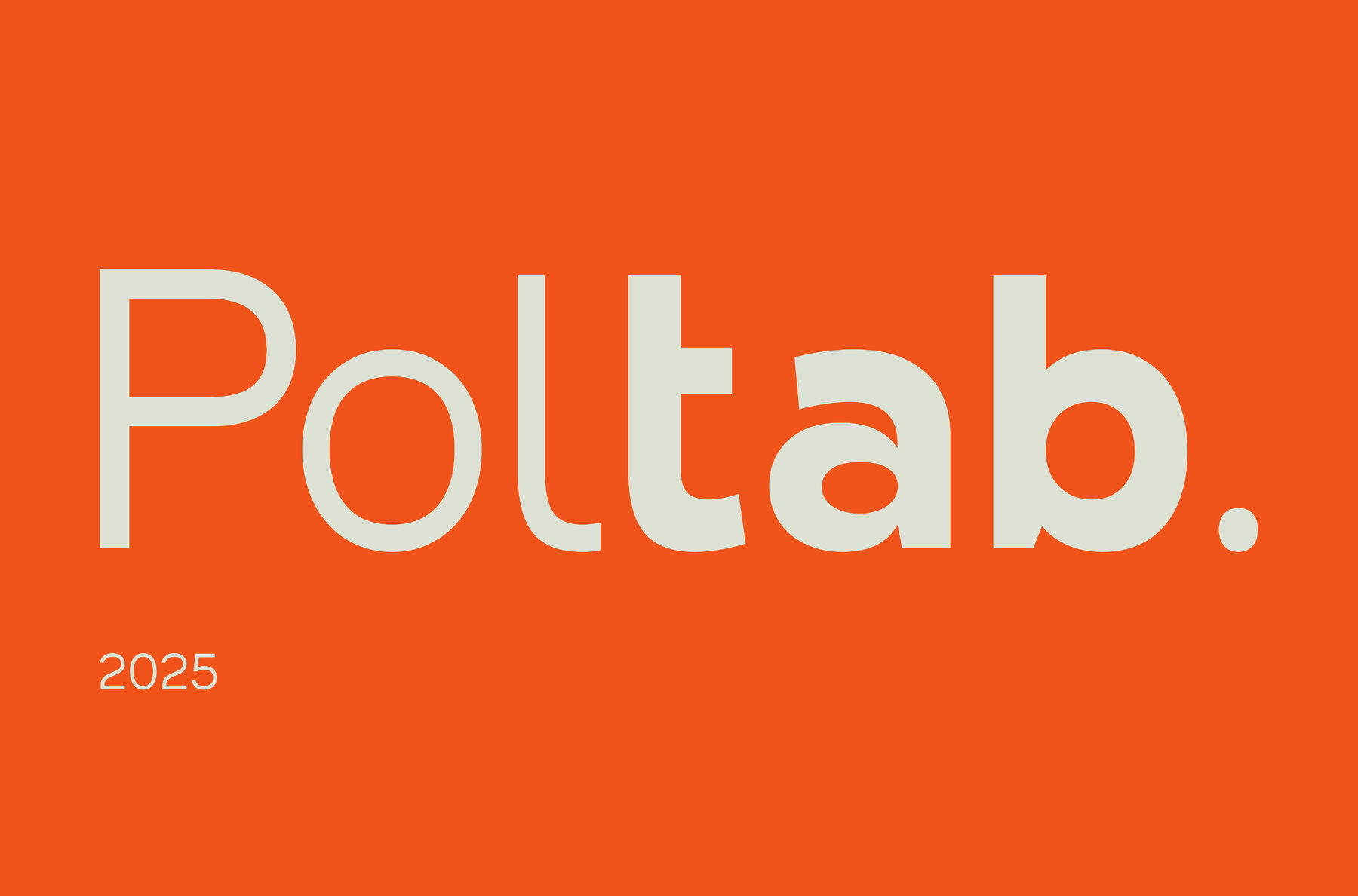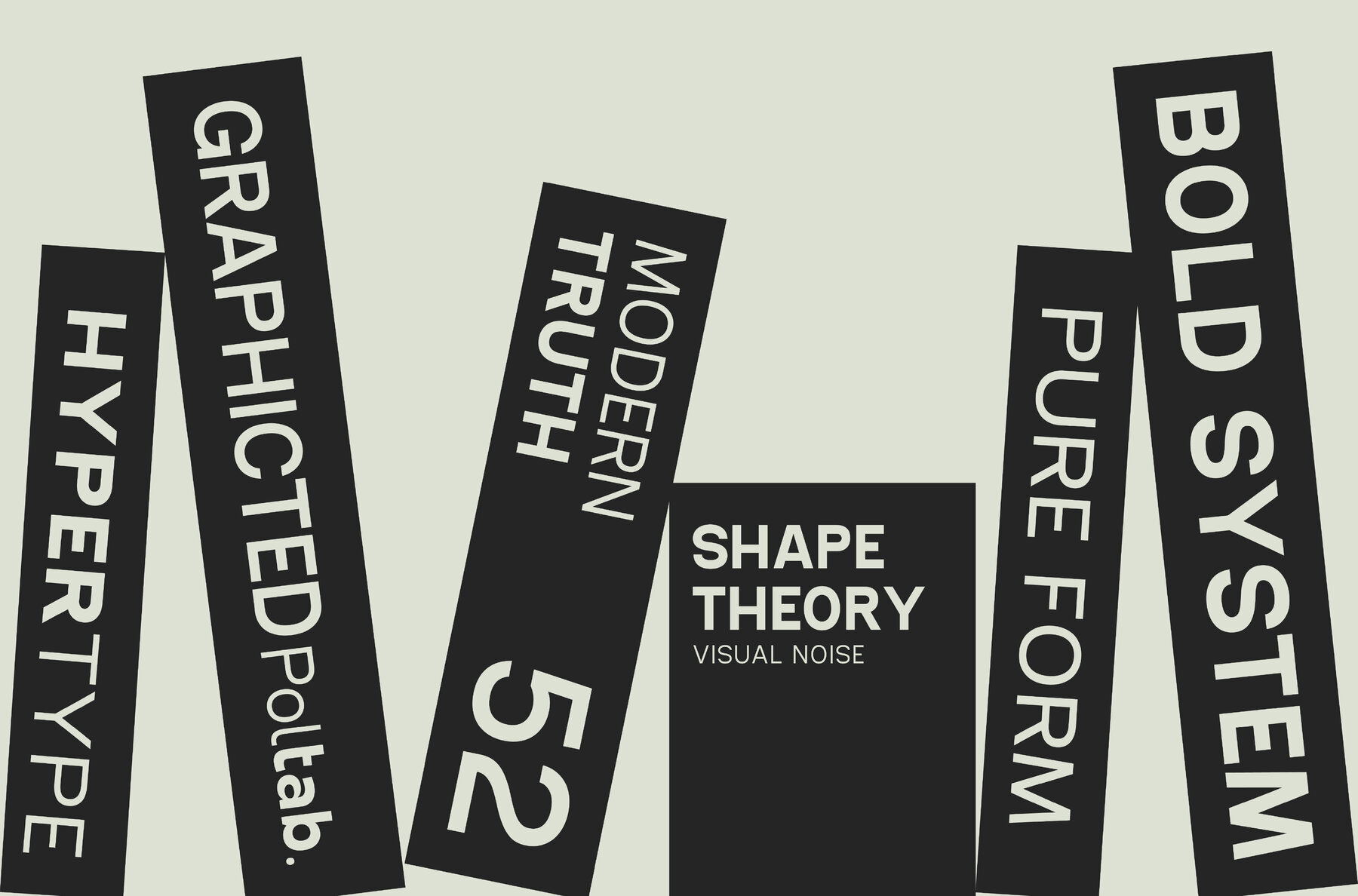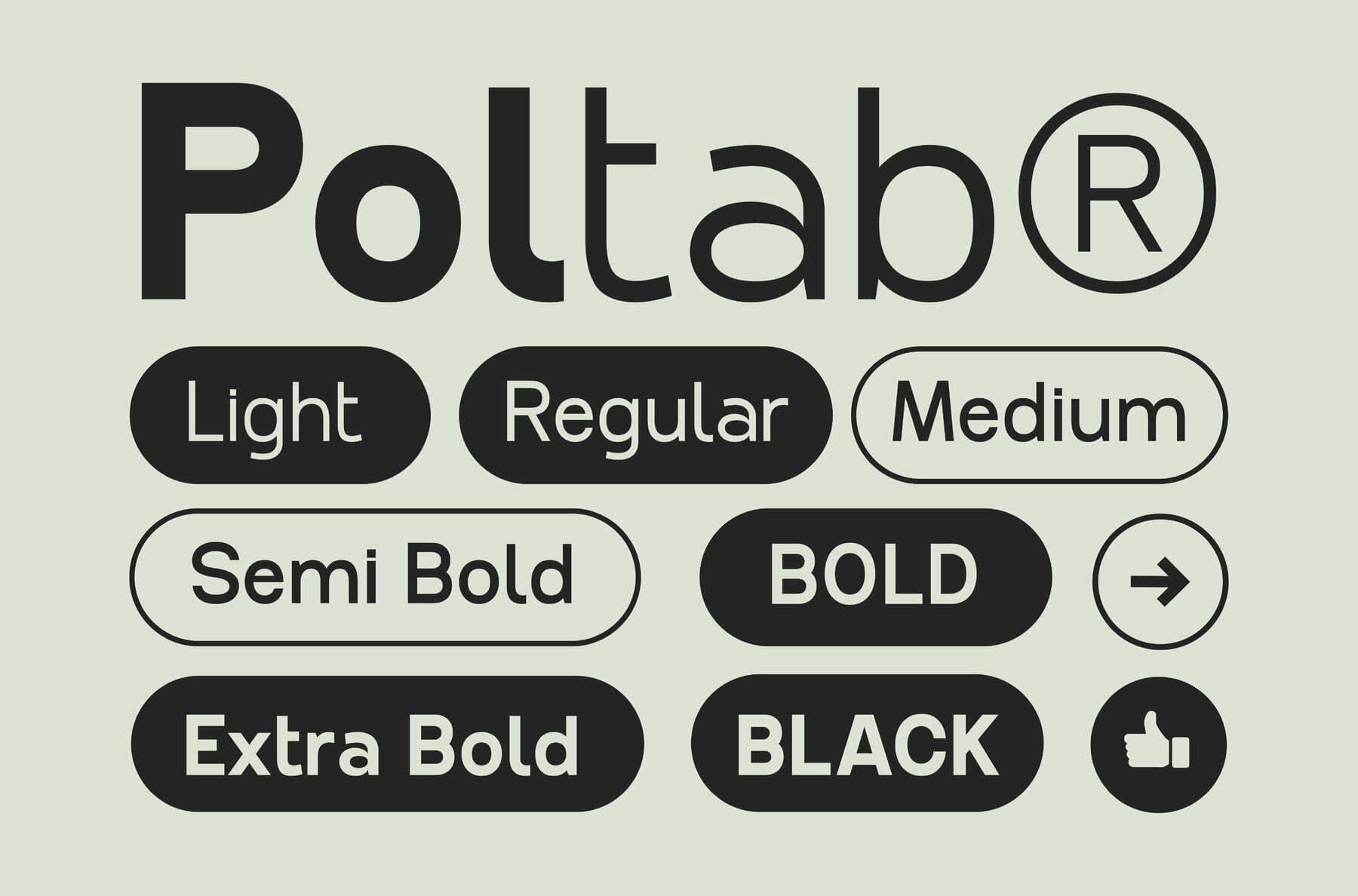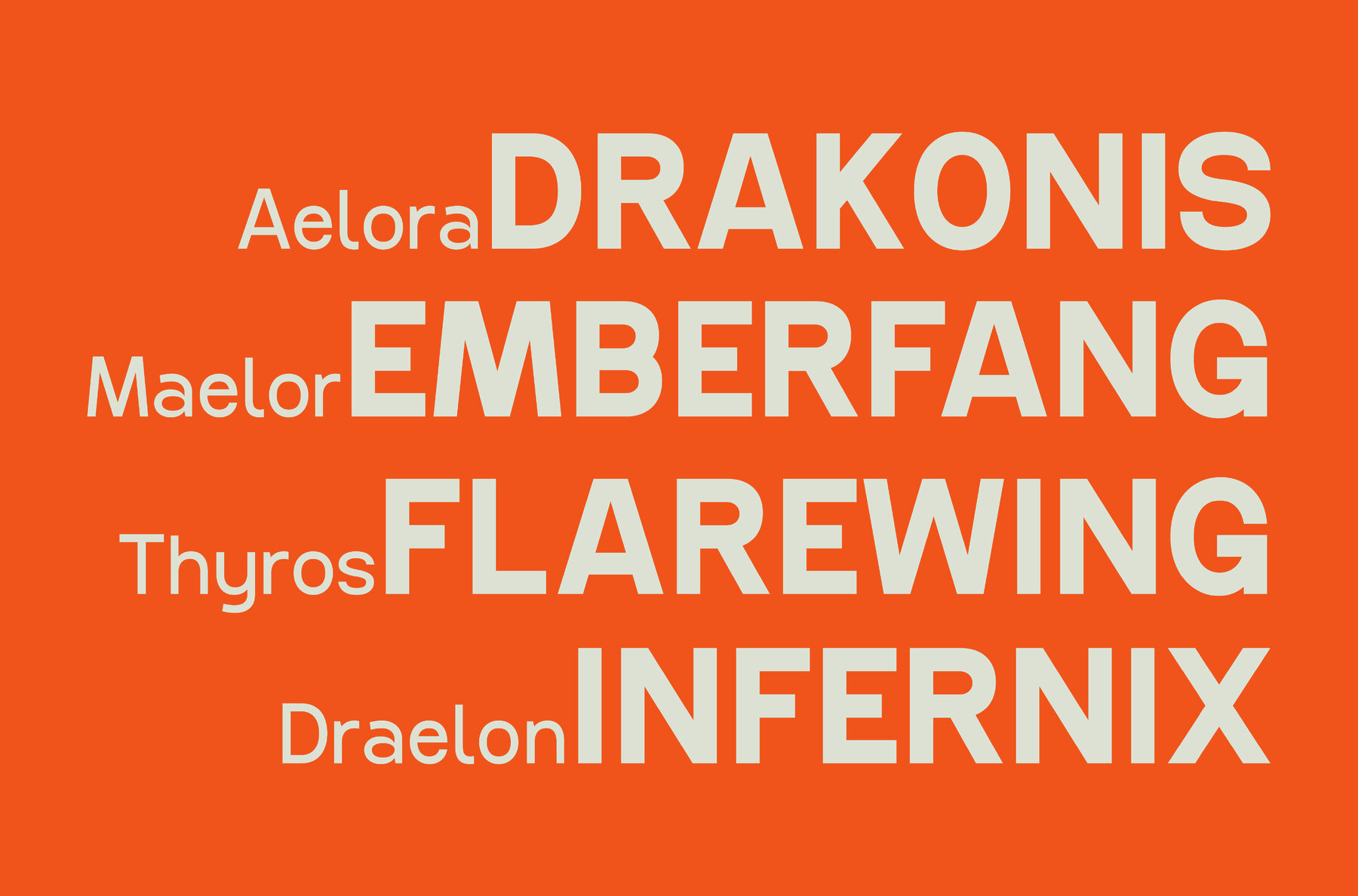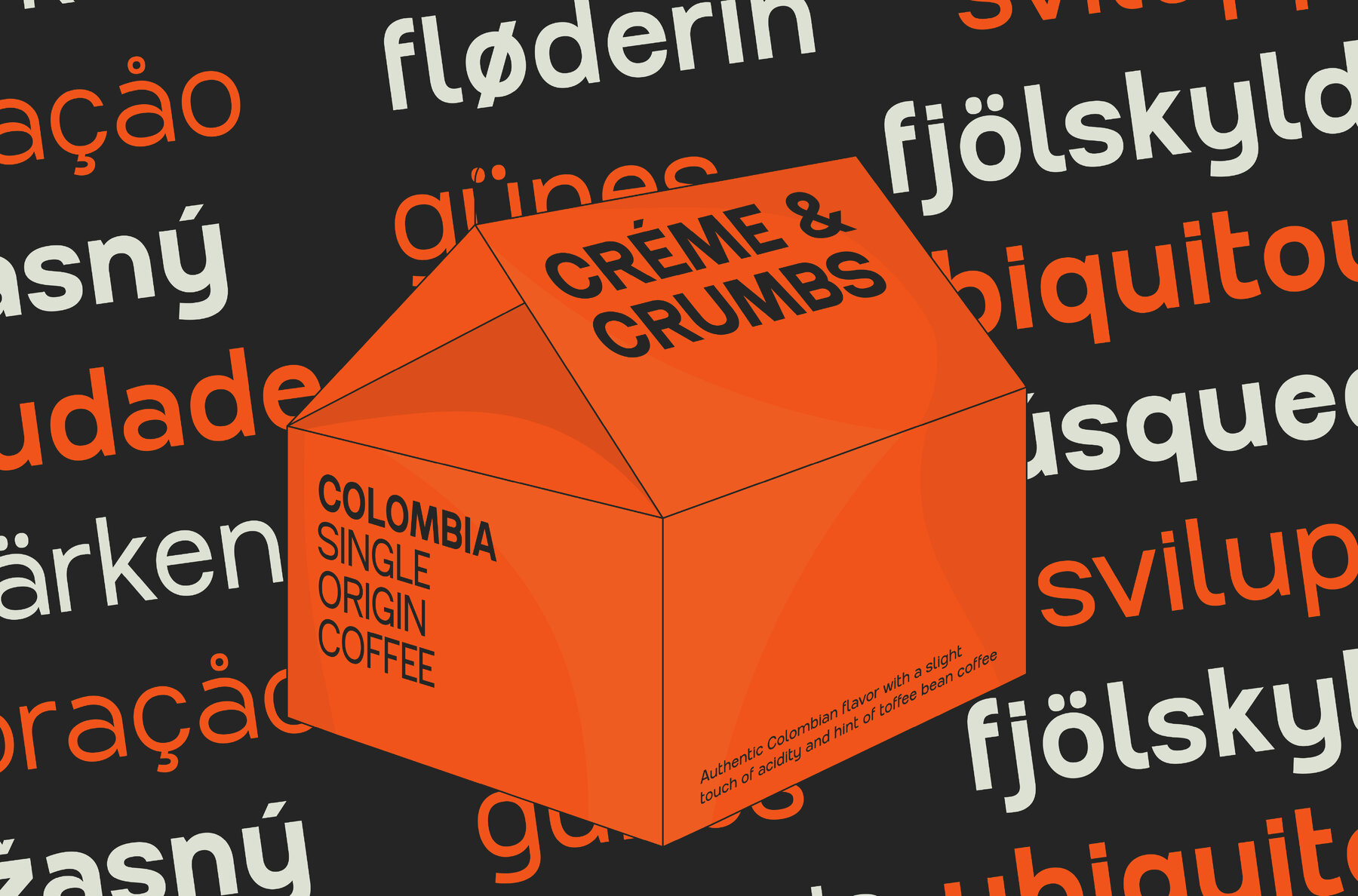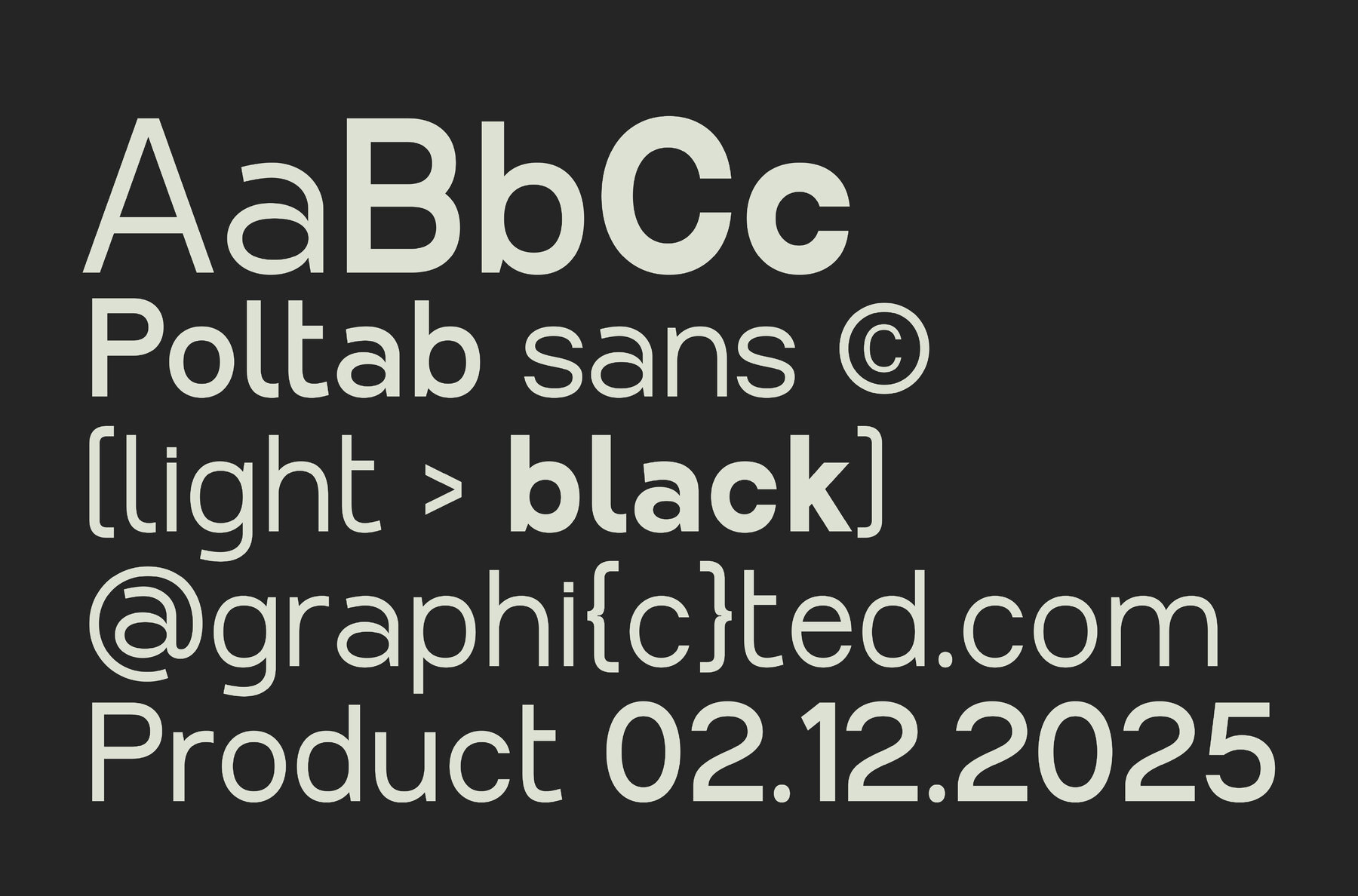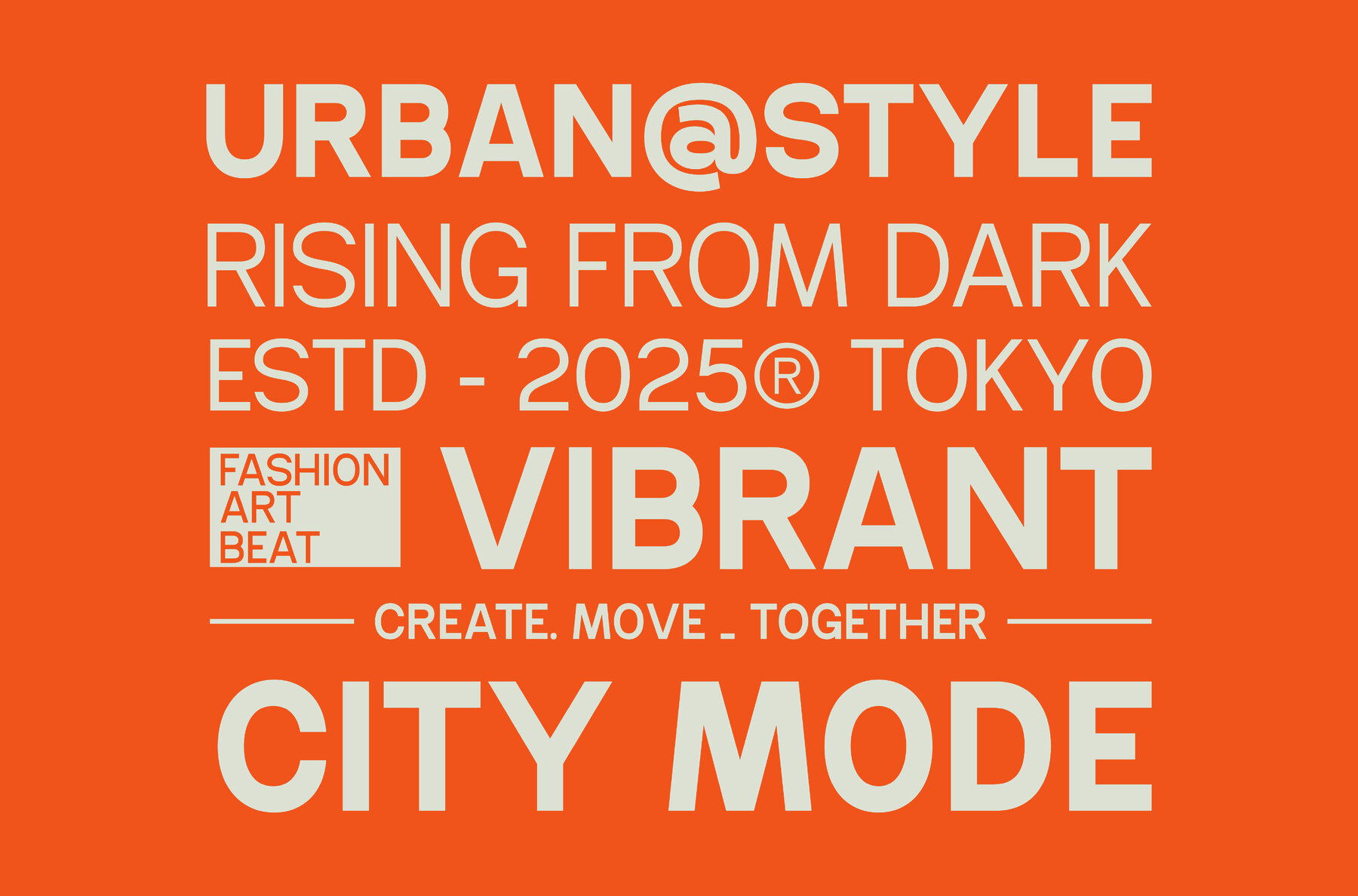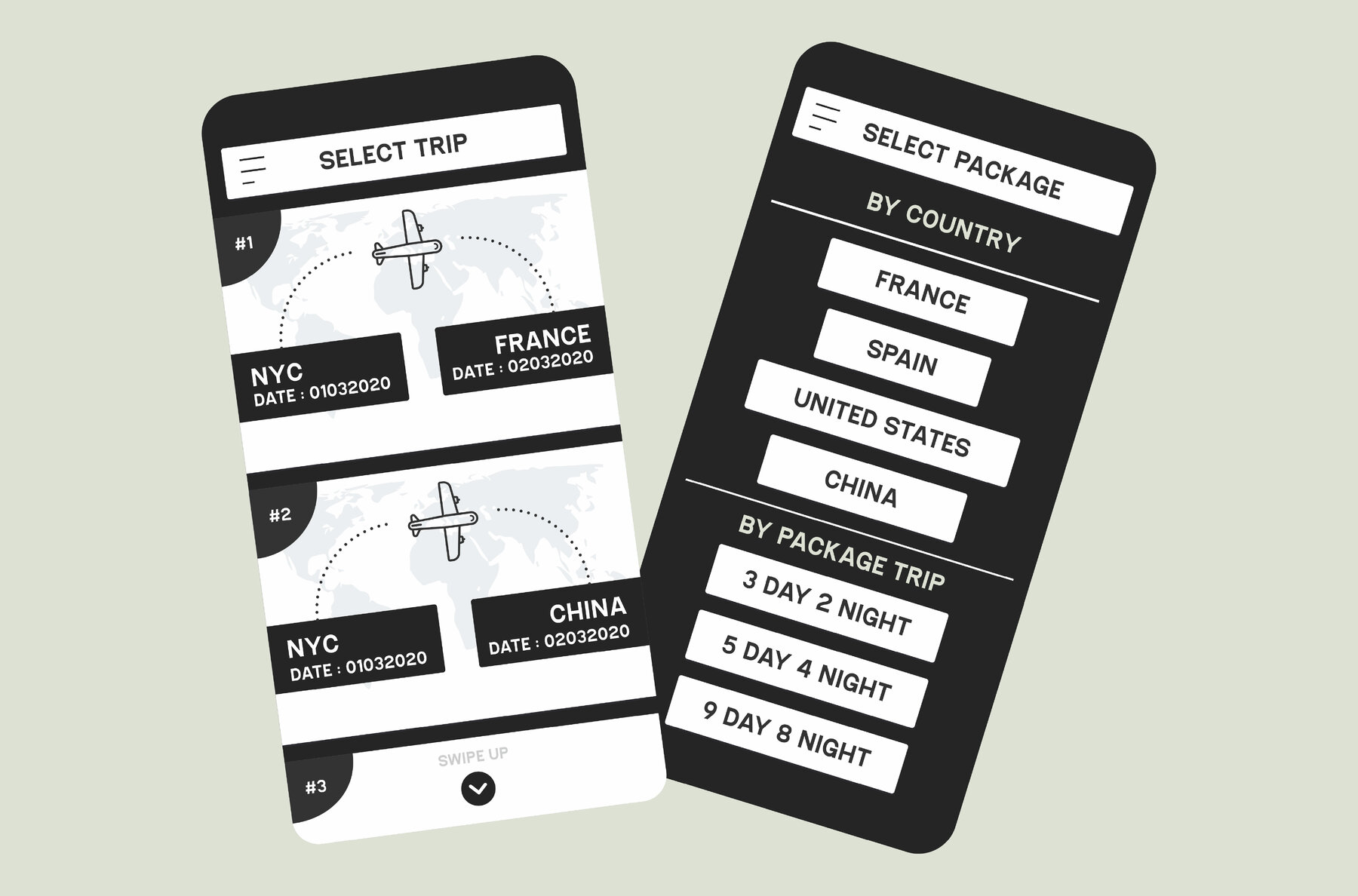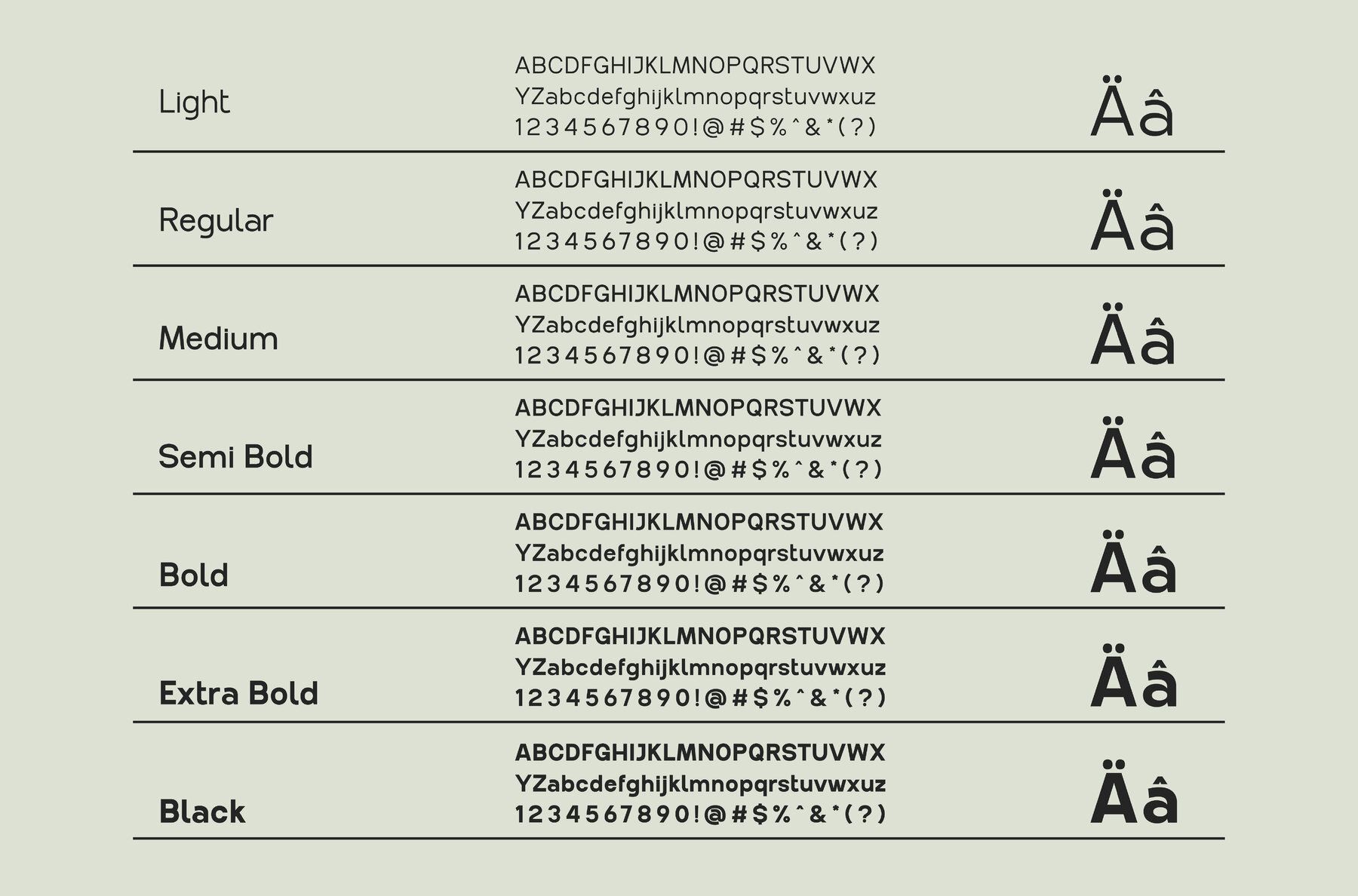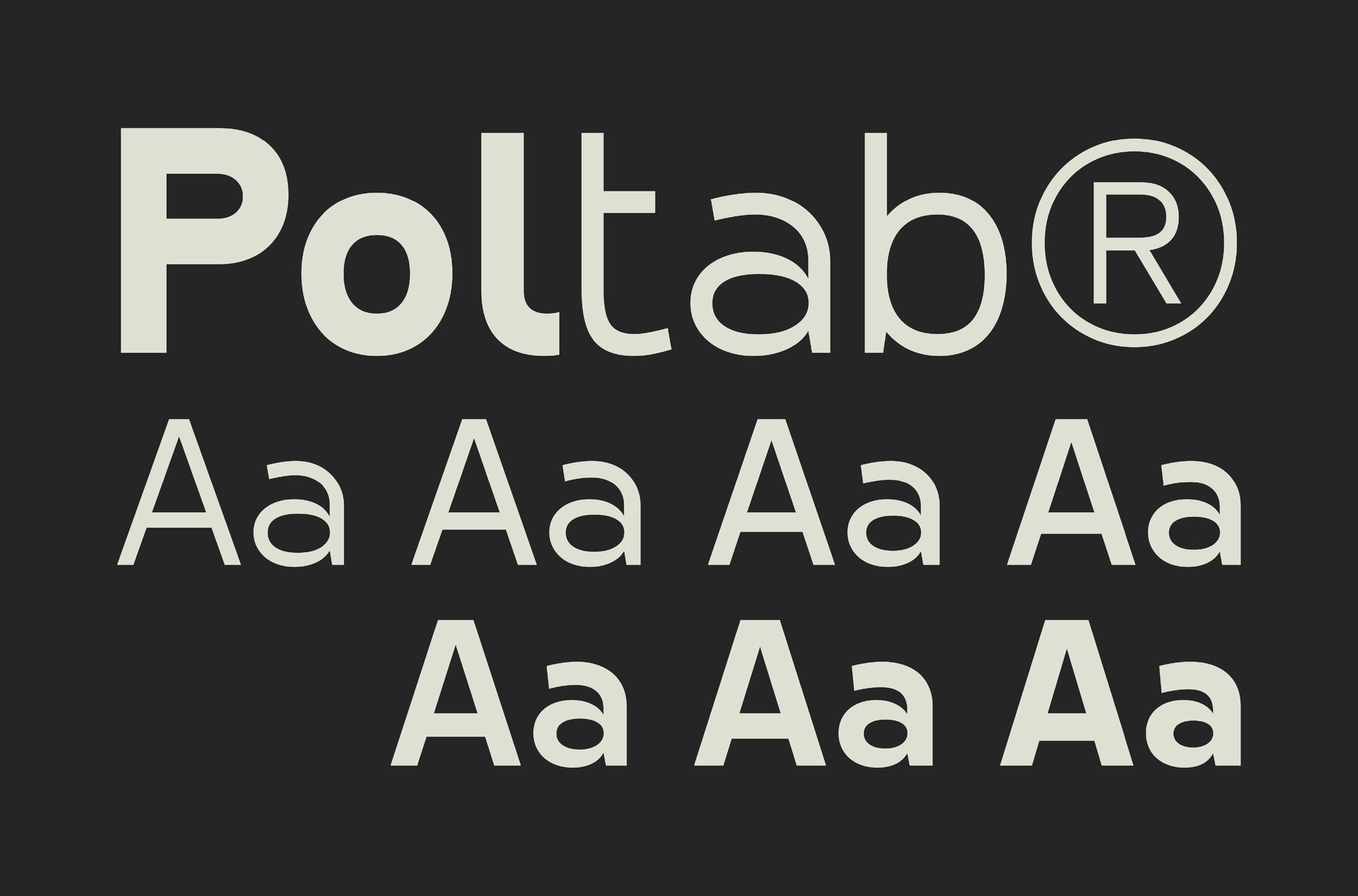
Poltab Font
Poltab is a sans-serif typeface that skillfully blends geometric precision with a welcoming human element. With origins in 2025, it combines perfectly circular shapes and a clean single-story 'a', offering unique details that infuse warmth and approachability. Poltab stands out through its exceptional legibility and minimalist aesthetic, making it a versatile asset in various design projects. Its application is vast, enhancing forward-thinking brands by excelling in logo design, website headlines, UI/UX interfaces, and social media content. Poltab is the quintessential choice for projects that seek a balance of timeless cleanliness and modern distinction.Poltab: Modern Sans-Serif with a Human Touch